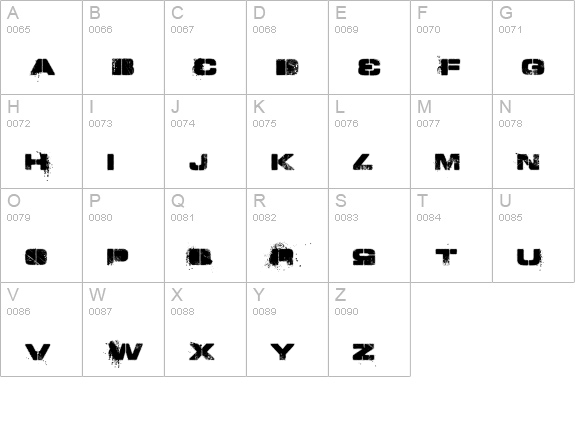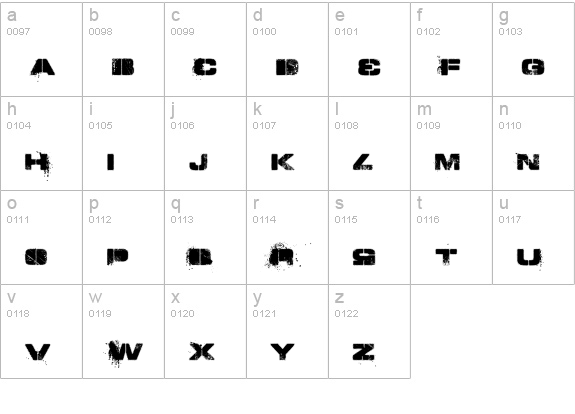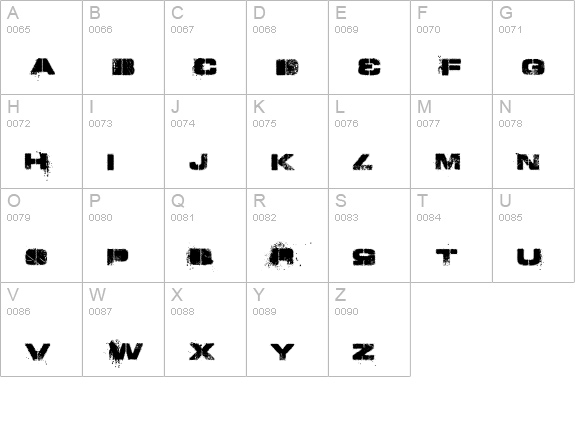
TOY_SOLDIERS Bold Font Details
TOY_SOLDIERS Bold is a strong, high-contrast variant in the TOY_SOLDIERS typeface family \xE2\x80\x94 well suited to headlines, attention-grabbing titles, and strong calls-to-action.
Introducing TOY_SOLDIERS Bold font, an exceptional typeface that exudes strength and showcases its bold nature with every character. This remarkable font brings a touch of playfulness and excitement to any design project, capturing the essence of childhood nostalgia and the imagination that runs wild. With its captivating presence, TOY_SOLDIERS Bold font effortlessly commands attention, making it the perfect choice for headlines, logos, and display designs that seek to make a bold statement. Its strong and defined letterforms add a sense of confidence and authority, ensuring that your message is conveyed with impact and clarity. What sets TOY_SOLDIERS Bold font apart is not only its striking aesthetics but also its remarkable versatility. Whether you're working on a children's book, a toy packaging design, or a creative project that requires a touch of whimsy, this font will effortlessly convey the desired atmosphere and captivate the imagination of your audience. But what makes TOY_SOLDIERS Bold font even more appealing is the fact that it is freely available to download at FontsMarket.com. Yes, that's right! Embrace the playful spirit and creative freedom that TOY_SOLDIERS Bold font offers, without any cost. This means that you can unleash your creativity without any limitations, knowing that this remarkable font is at your disposal, ready to elevate your designs to new heights. So why wait? Download TOY_SOLDIERS Bold font today from FontsMarket.com and start exploring the endless possibilities of design. Whether you're a professional designer or an aspiring creative, this font will undoubtedly become an invaluable asset in your toolkit, allowing you to create captivating and impactful designs that leave a lasting impression. Let TOY_SOLDIERS Bold font be your partner in bringing joy, excitement, and a touch of childhood magic to your next project.